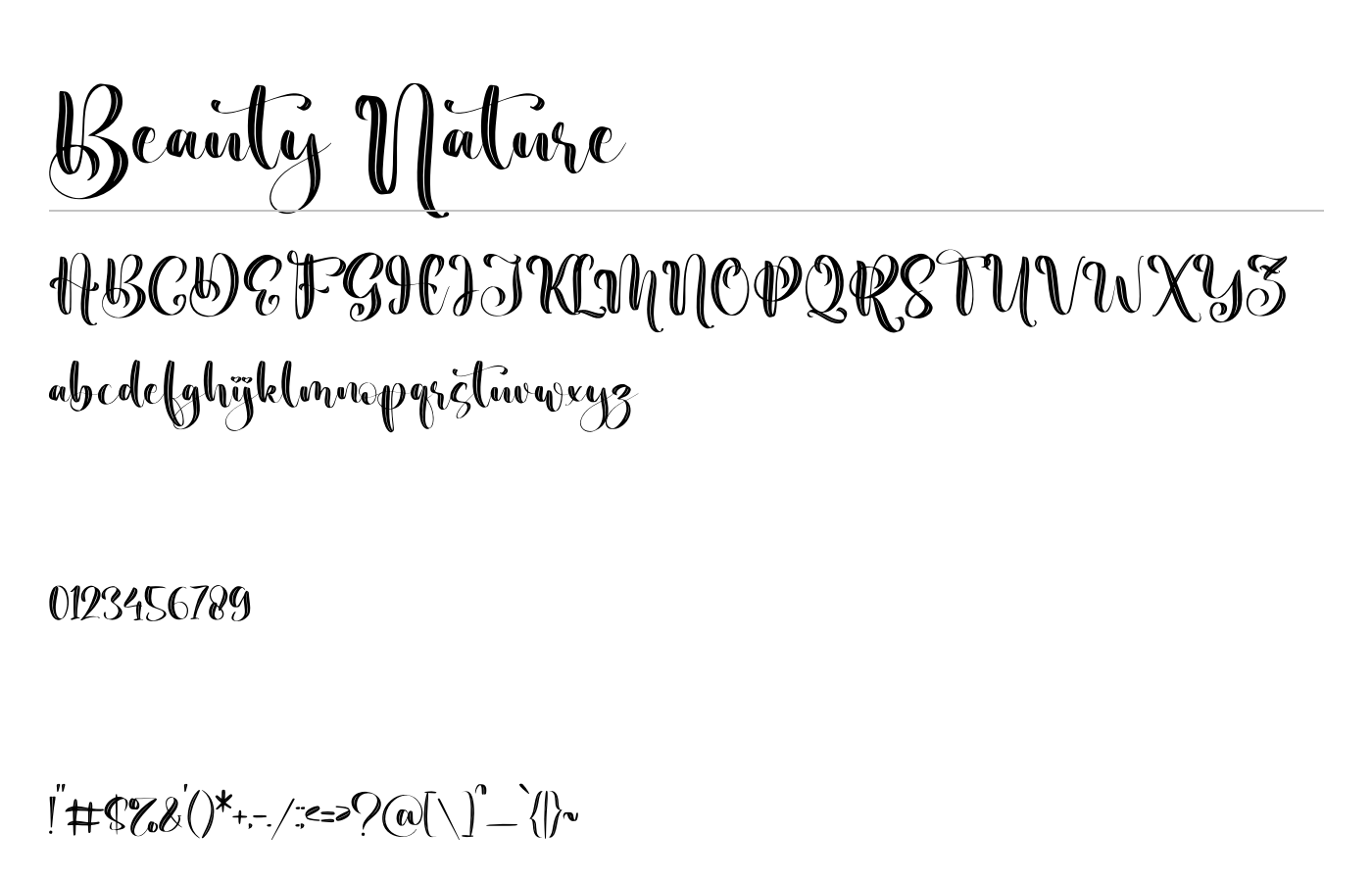
Beauty Nature is an elegant script font with flowing, decorative letterforms that blend modern calligraphy with a playful touch. Its smooth strokes and ornate swashes make it perfect for feminine branding, wedding invitations, and luxury packaging, adding a personal and artistic feel. This font shines in display settings where its beauty and intricate details can be fully appreciated.
Beauty Nature Font
About Beauty Nature Font